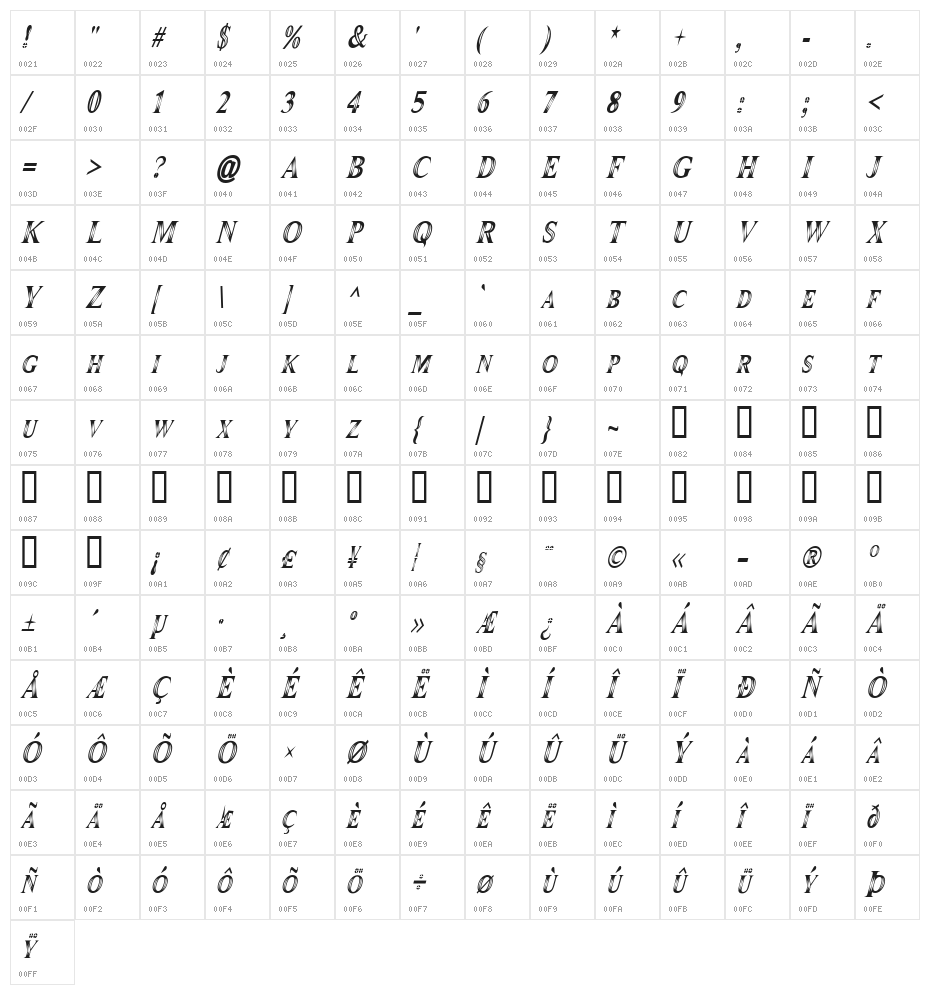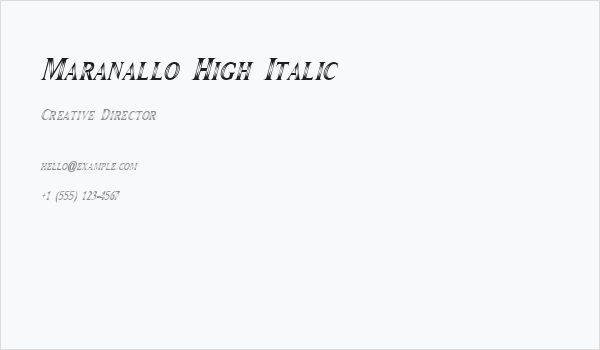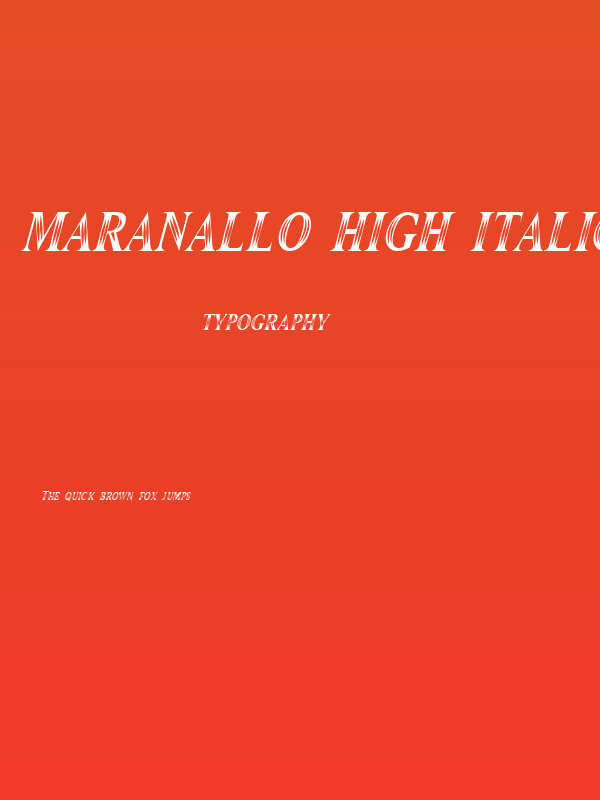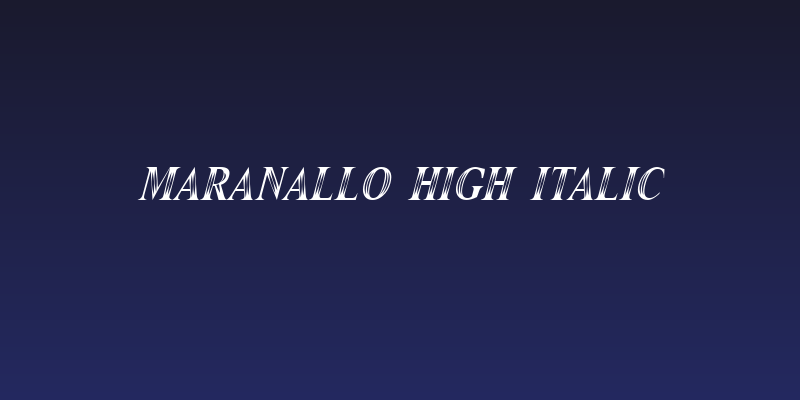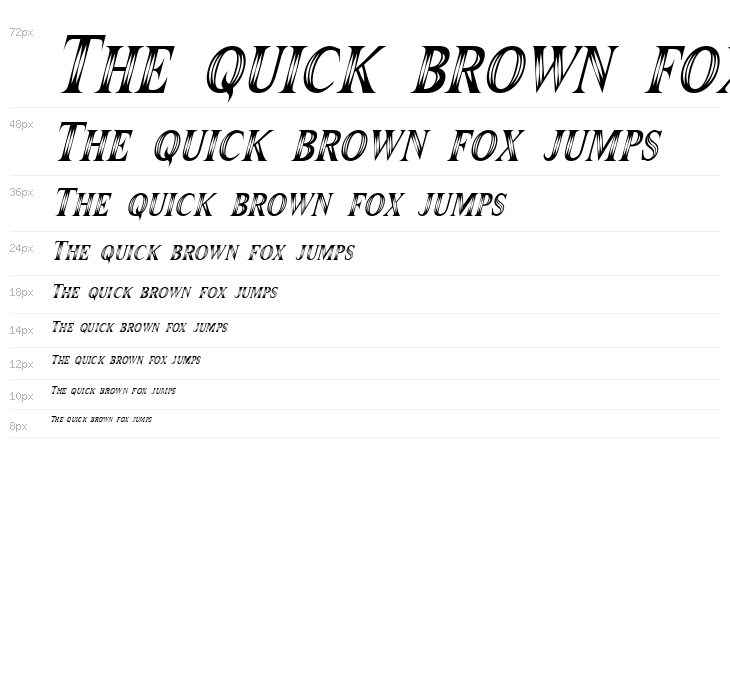
Maranallo High Italic Font
Maranallo High Italic Description
This font features a dynamic and elegant design with a high contrast between thick and thin strokes, creating a sense of movement and sophistication. The italic style adds a slanted, forward-leaning appearance, enhancing its energetic and stylish character. Each letter is crafted with sharp serifs and a distinct flair, making it suitable for attention-grabbing headlines and titles. The numerals and special characters maintain the same bold and expressive style, ensuring consistency across all uses.